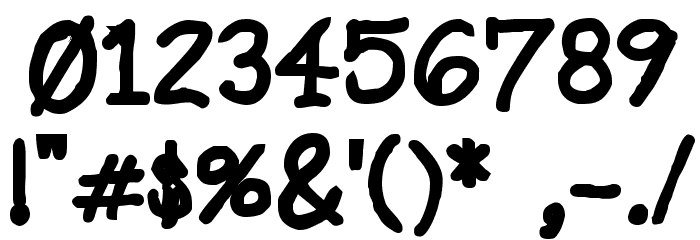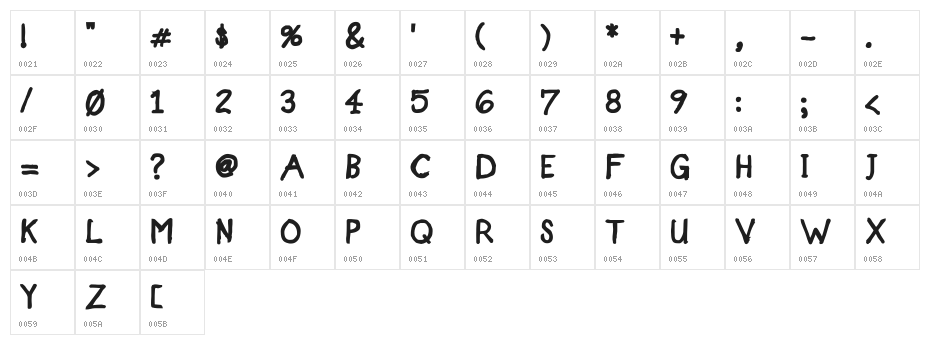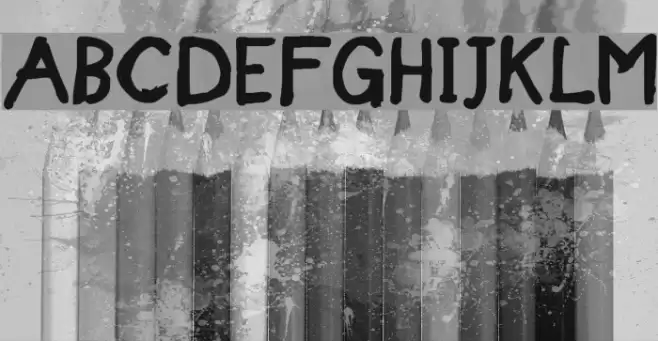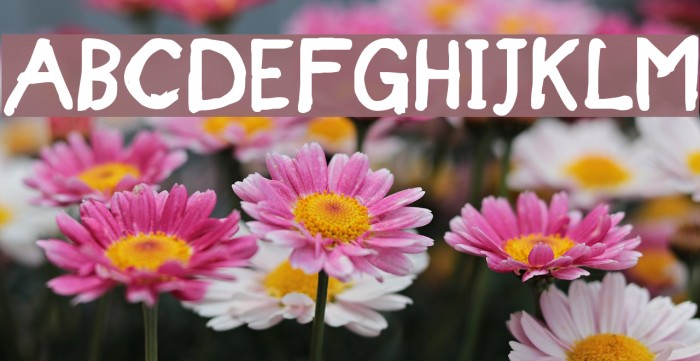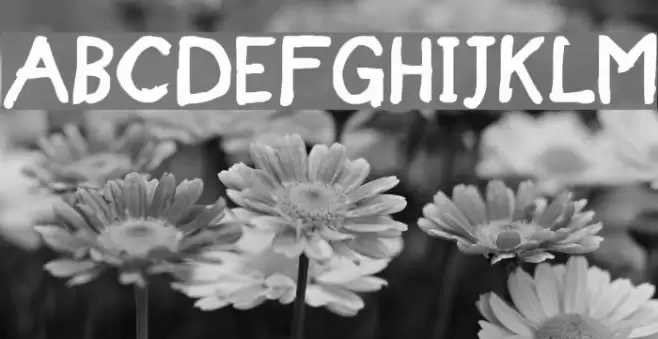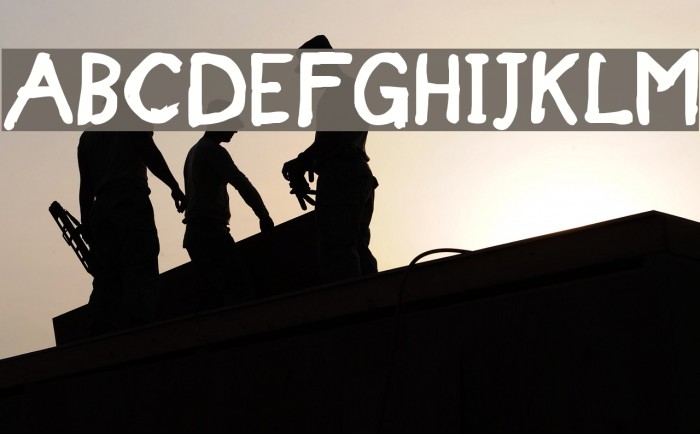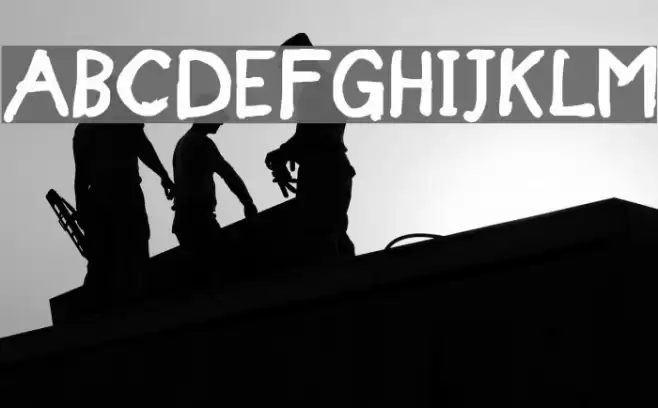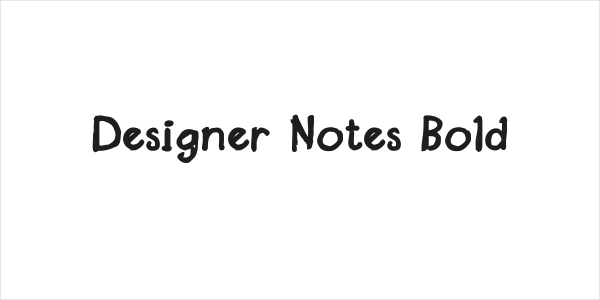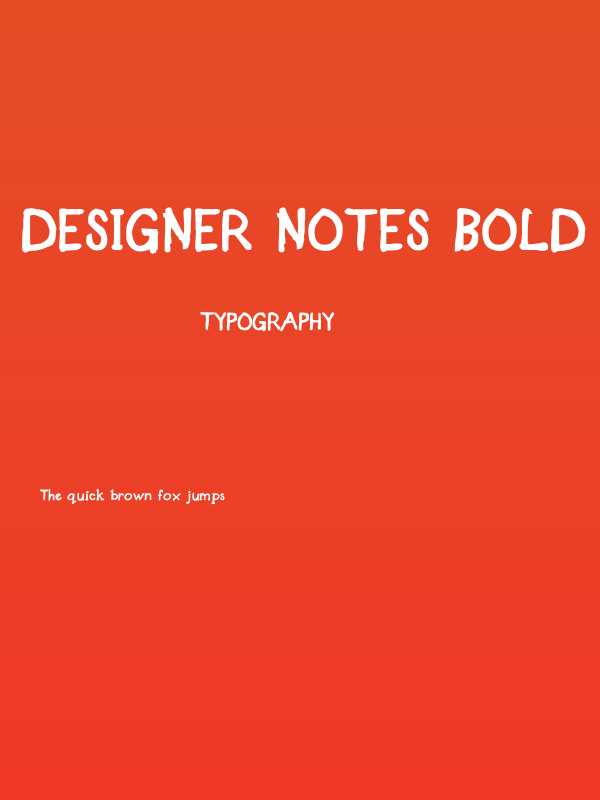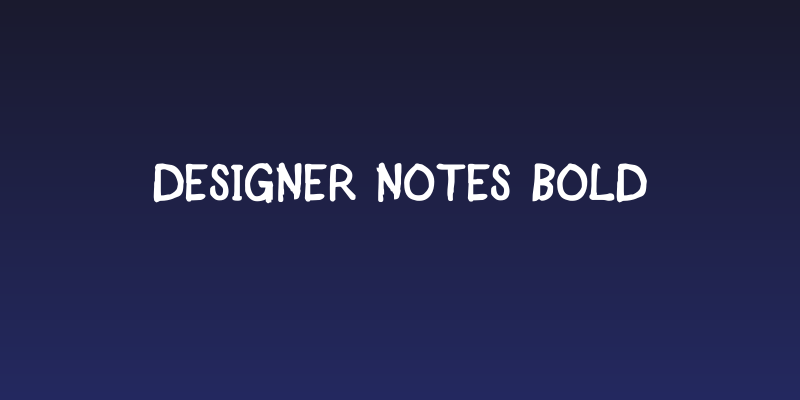
Designer Notes Bold Font
Designer Notes Bold Description
This font exudes a playful and handwritten style, characterized by its bold and slightly irregular strokes that mimic the natural flow of handwriting. The letters are rounded and have a casual, informal appearance, making them ideal for projects that require a personal touch. The uppercase and lowercase letters maintain a consistent style, with the uppercase being slightly more structured. Numbers and special characters follow the same design ethos, ensuring uniformity across all text elements. The font's boldness enhances its legibility, even at smaller sizes, while the slightly uneven character shapes add a unique charm.
| Overall Style | Playful, Informal |
| Proposed Projects | Ideal for greeting cards, children's books, casual branding, and creative projects that benefit from a personal, informal touch. |